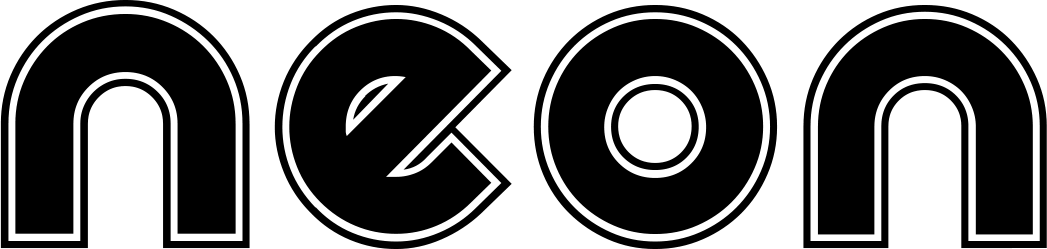
Neon Font
Neon font is a rounded font that can be seen with very different outline lines. This neon font only supports lowercase letters. Uppercase letters and numbers are not included in this font, and you can use other fonts to create one of the most attractive posters for your video game.
This neon font can be very bright in many nightclub titles, attract many customers to your club name, and have a great night.
Neon is a Font by Nils von Blanc